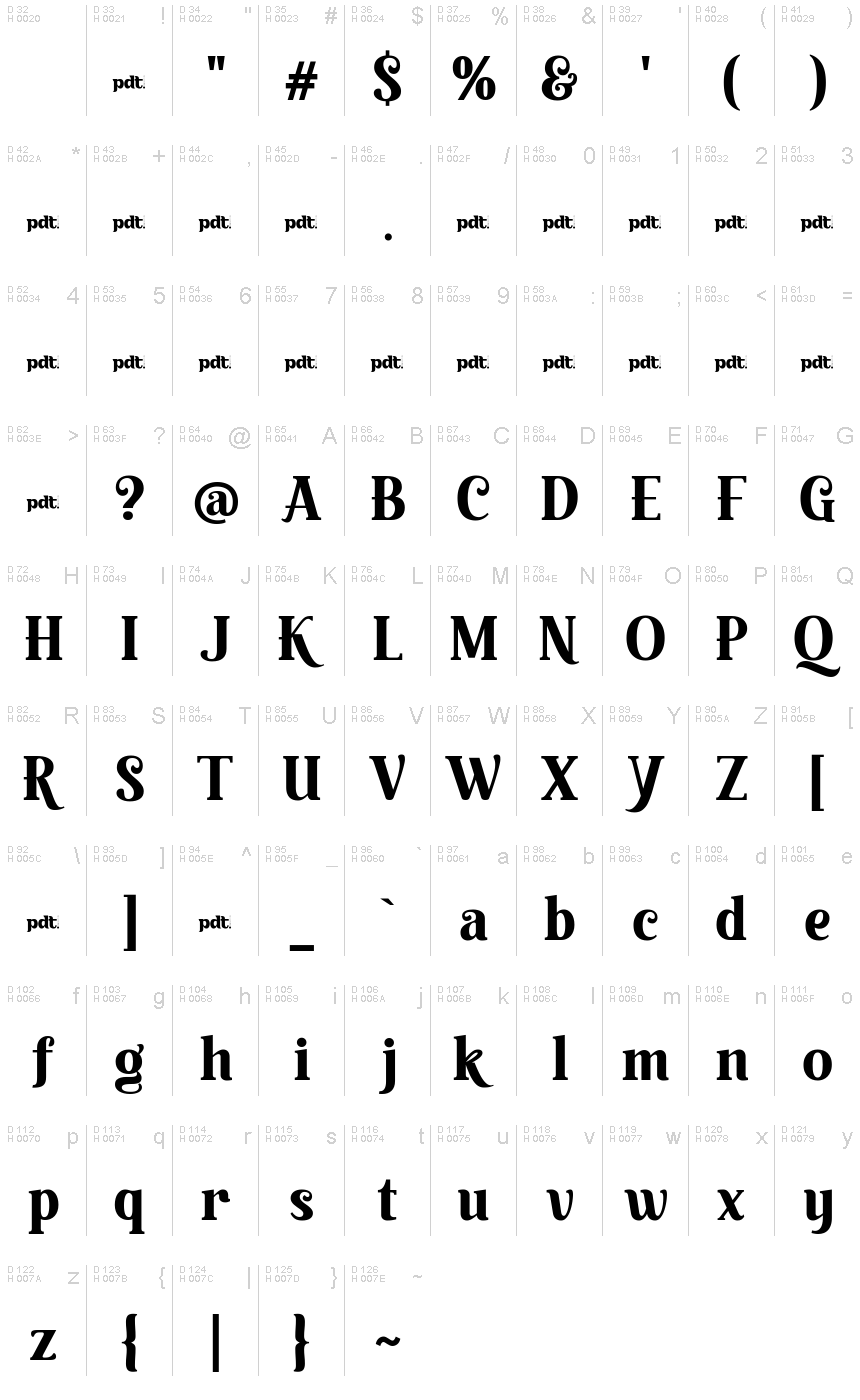
Kestaik Regular
Kestaik font by productype is an elegant and sophisticated serif font that draws inspiration from classic literature covers. It carries a vintage appeal that evokes nostalgia, formality, and timelessness for any text. Its delicate shapes with thoughtful details ensure the display of messages in a unique style where every word is worth reading.
Use the free serif font for book cover designs, luxury branding projects, formal invitations, advertisements, visual identity presentations, business cards or greeting cards that need a personal touch. Try it out in magazines and newspaper design layouts as well as logotypes and signage designs.